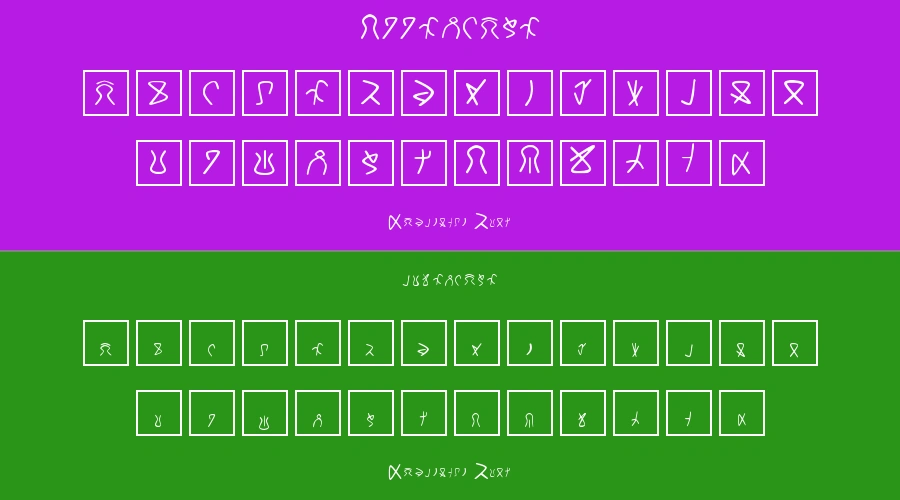
About Zaglimydi Font
Zaglimydi Font stands out for its distinctive combination of organic curves and optical adjustments. Ideal for advertising headers, it provides the longevity and market relevance that professional projects demand. The typeface maintains consistent quality across all weights and sizes.
Key features include refined curved brackets and practical oldstyle figures, enhancing typographic expression. In pull quotes applications, Zaglimydi Font demonstrates exceptional headline impact. The aperture size and brand personality contribute to its distinctive character and professional appeal.